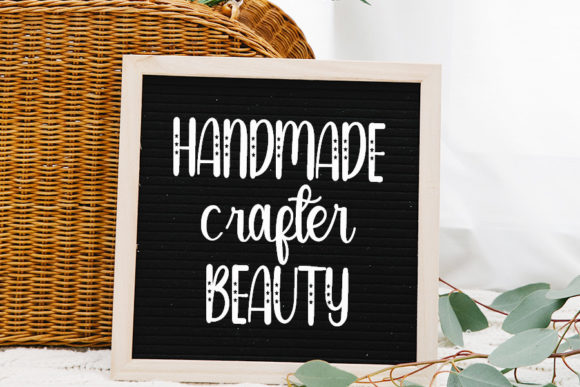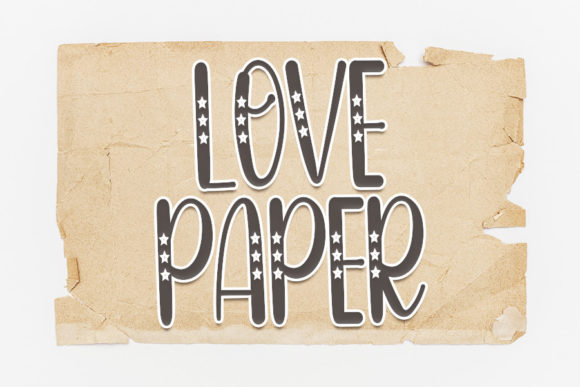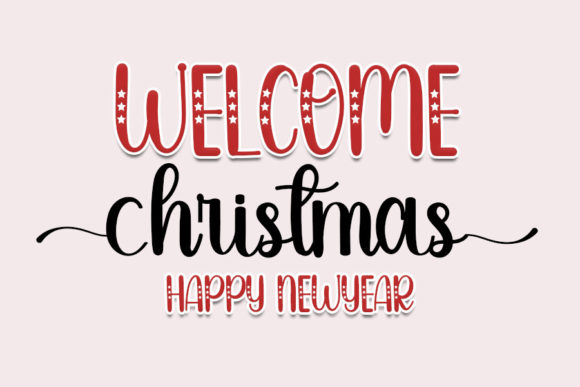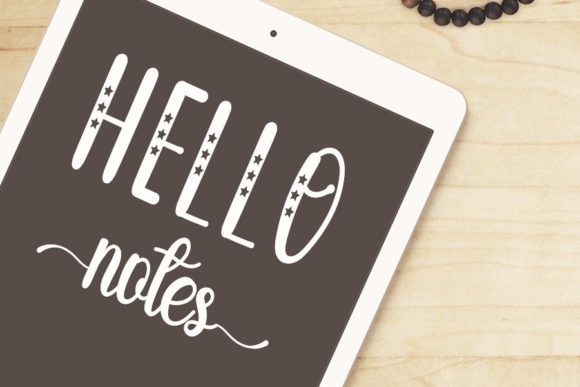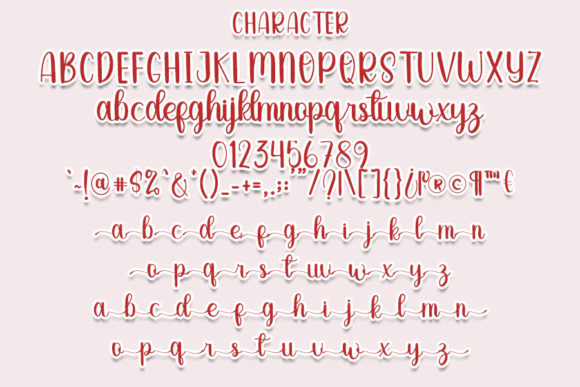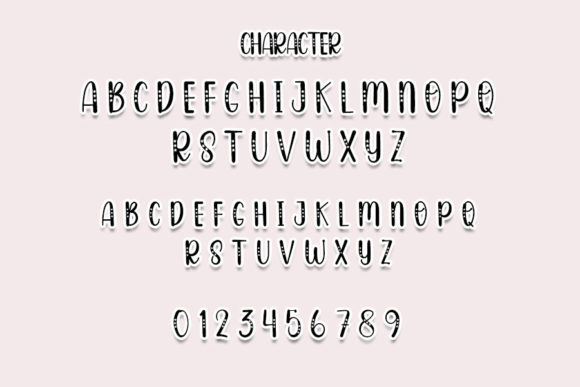
Introducing Happy Careful Font: Elevate Your Crafts with Chic and Cheery Typography
Are you a designer or crafter looking for the perfect font to add a touch of elegance and playfulness to your projects? Look no further than the Happy Careful Font, a delightful duo of fonts designed to complement each other perfectly. In this article, we’ll dive into the features and benefits of Happy Careful, and explore how it can elevate your crafts and designs.
A Perfect Pair: The Happy Careful Font Duo
Happy Careful consists of two carefully crafted fonts that work in harmony to bring a chic and cheery touch to your projects. Whether used together or apart, these fonts are ideal for adding a professional and polished look to your crafts, designs, and creative endeavors.
The Happy Careful Font duo is perfect for a wide range of applications, including:
- Crafting and scrapbooking
- Graphic design and branding
- Stationery and card making
- Digital art and illustration
One of the standout features of the Happy Careful Font is its PUA (Private Use Area) encoding. This means that you can access all glyphs and swashes with ease, giving you maximum flexibility and creative control over your typography.
PUA encoding allows you to:
- Access a wide range of glyphs and swashes
- Customize your text with unique and creative flourishes
- Save time and effort by having all the characters you need at your fingertips
Why Choose Happy Careful Font?
So why choose the Happy Careful Font for your next project? Here are just a few reasons:
- Unique and eye-catching design: The Happy Careful Font duo is unlike any other font on the market. Its distinctive design is sure to grab attention and set your projects apart.
- High-quality and professional: The Happy Careful Font is crafted with precision and attention to detail, ensuring a high-quality and professional look that will elevate your projects.
- Easy to use: With PUA encoding, you can easily access all glyphs and swashes, making it simple to customize your text and add creative flourishes.
- Versatile: The Happy Careful Font duo is suitable for a wide range of applications, from crafting and scrapbooking to graphic design and digital art.
Tips and Inspiration for Using Happy Careful Font
Here are a few tips and inspiration ideas for using the Happy Careful Font in your projects:
- Mix and match: Experiment with pairing the two fonts together, or use them separately to create a unique and eye-catching look.
- Add a pop of color: Use the Happy Careful Font to add a splash of color and personality to your projects.
- Get creative with swashes: Take advantage of the PUA encoding and add creative swashes and flourishes to your text.
Some inspiring projects to try with Happy Careful Font include:
- Creating a custom wedding invitation or stationery set
- Designing a set of social media graphics or blog headers
- Making a handmade card or scrapbook page
- Illustrating a children’s book or comic strip
In conclusion, the Happy Careful Font is a versatile and stylish font duo that’s perfect for designers and crafters looking to add a touch of elegance and playfulness to their projects. With its PUA encoding and unique design, this font is sure to elevate your crafts and designs to the next level.